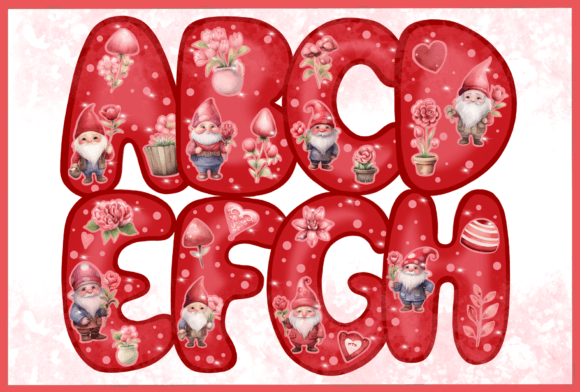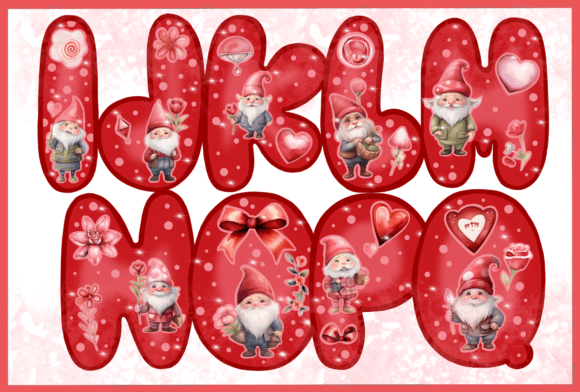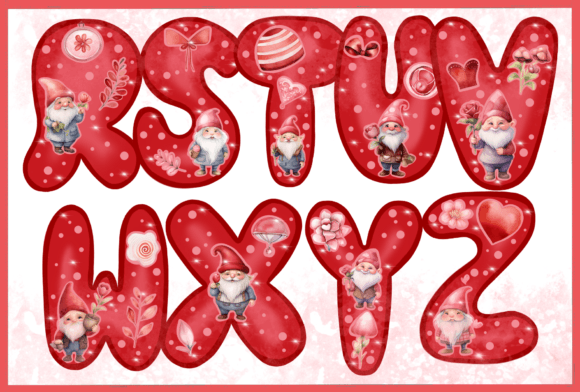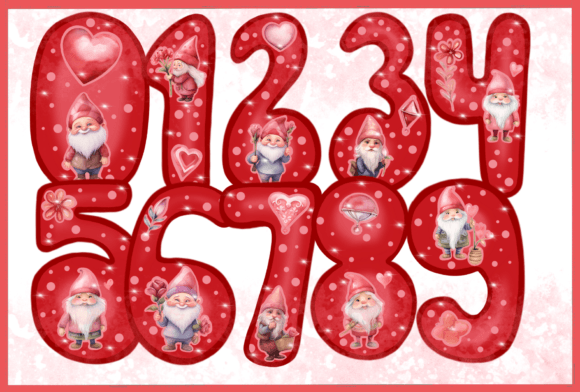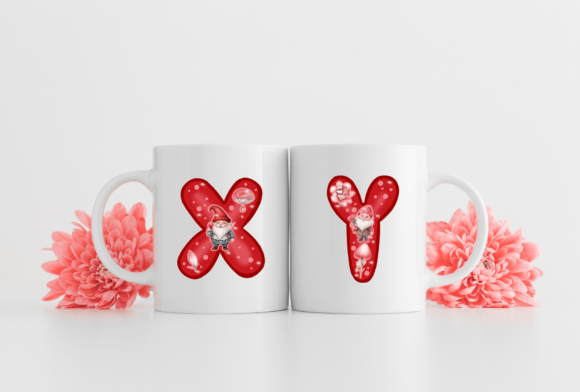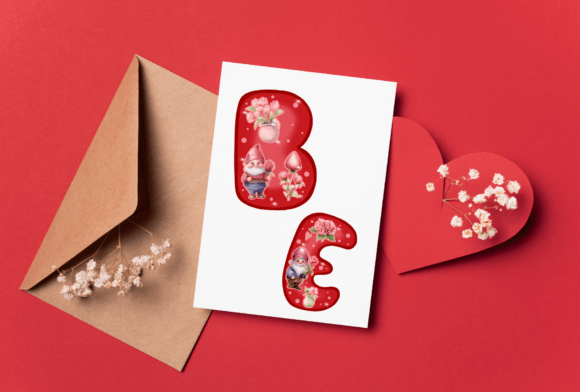
Introduction to For You Font Font
Fonts play a crucial role in design, and the For You Font font is a typeface that brings both character and versatility to any project. Whether you’re working on a branding project, a website, or a print design, the For You Font font offers a unique style that can elevate your work.
Introducing βFor You,β the ultimate Valentineβs font that exudes super-cute handwritten charm.
With its simple yet delightful style, this font is perfectly suited for teaching materials, bringing a touch of whimsy to your educational content Elevate your presentations with βFor You,β a versatile font that adds a playful and endearing element, ideal for education, advertising, illustration, and a variety of multi-purpose applications.
Key Features of For You Font Font
Why Choose For You Font Font?
The For You Font font is more than just a typeface β it’s a design tool that helps you communicate your message with style and clarity. Its unique character set and versatile design make it suitable for a wide range of applications, from elegant invitations to bold headlines.
With its carefully crafted letterforms and balanced proportions, the For You Font font ensures readability and visual appeal across all mediums.
What makes For You Font font special?
The For You Font font stands out with its unique design, exceptional readability, and versatility across various design applications.